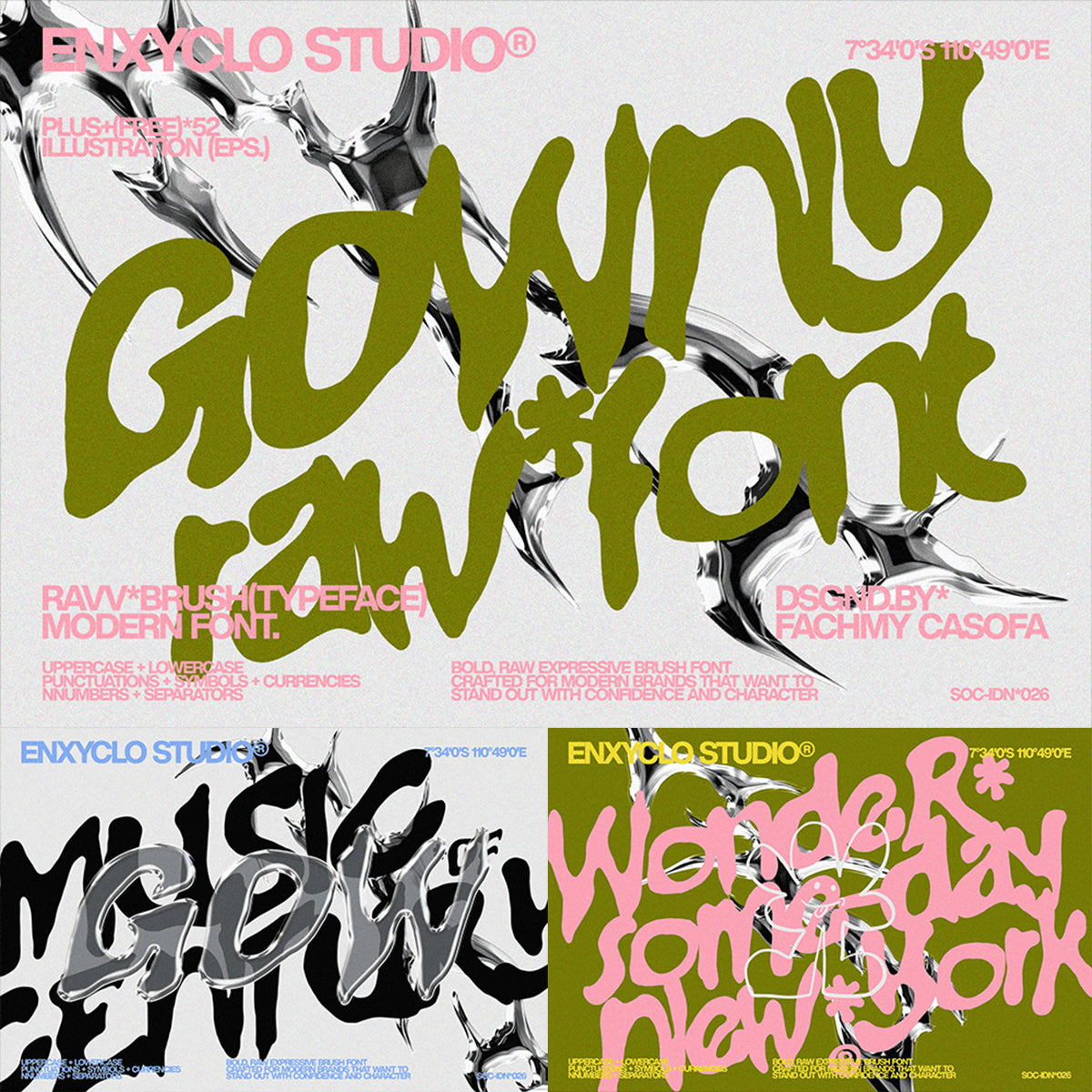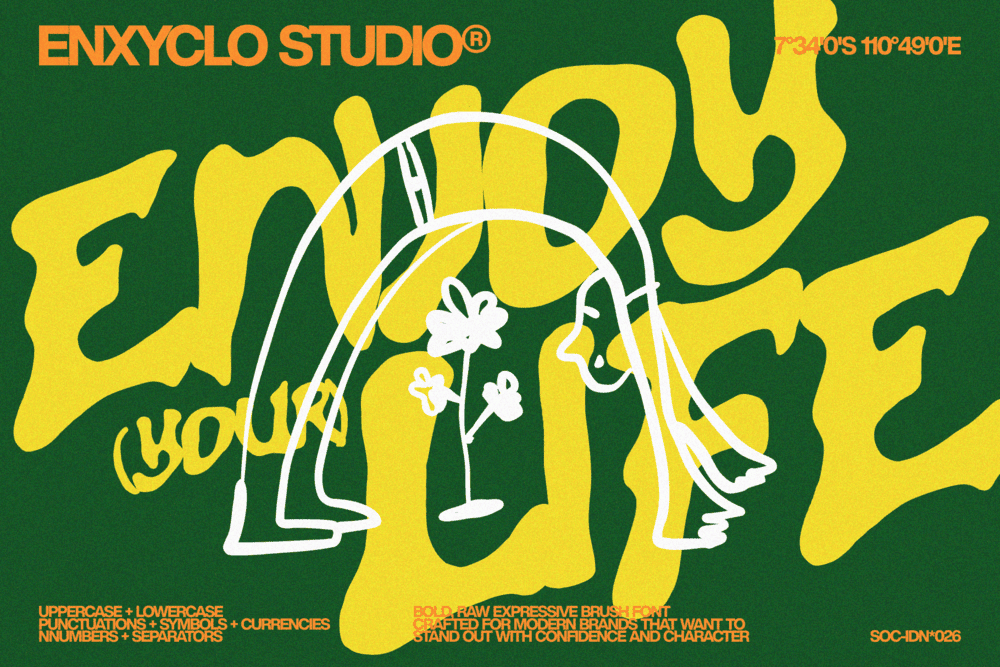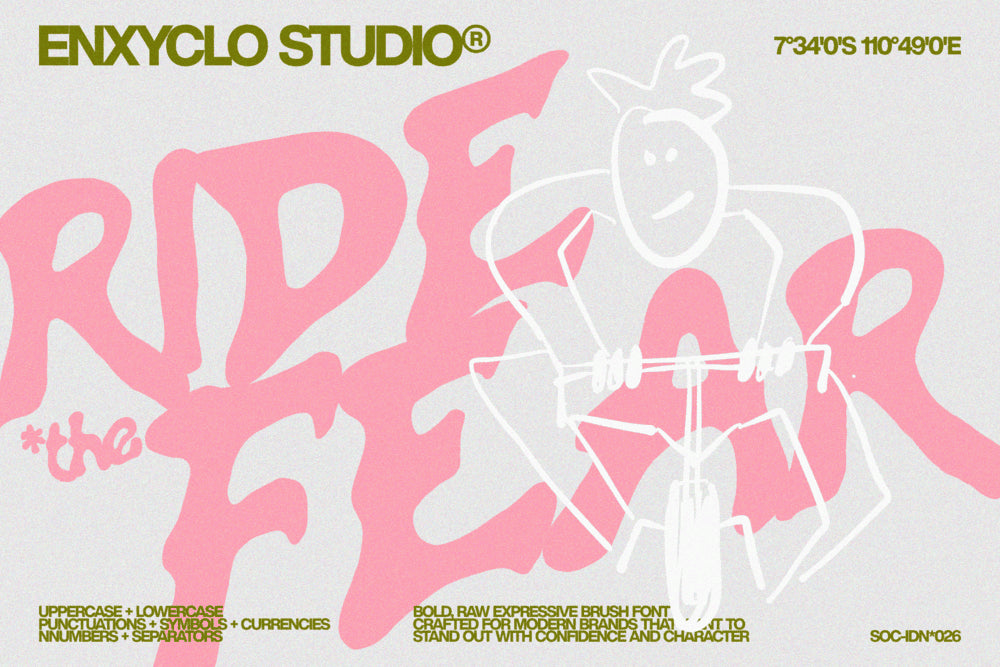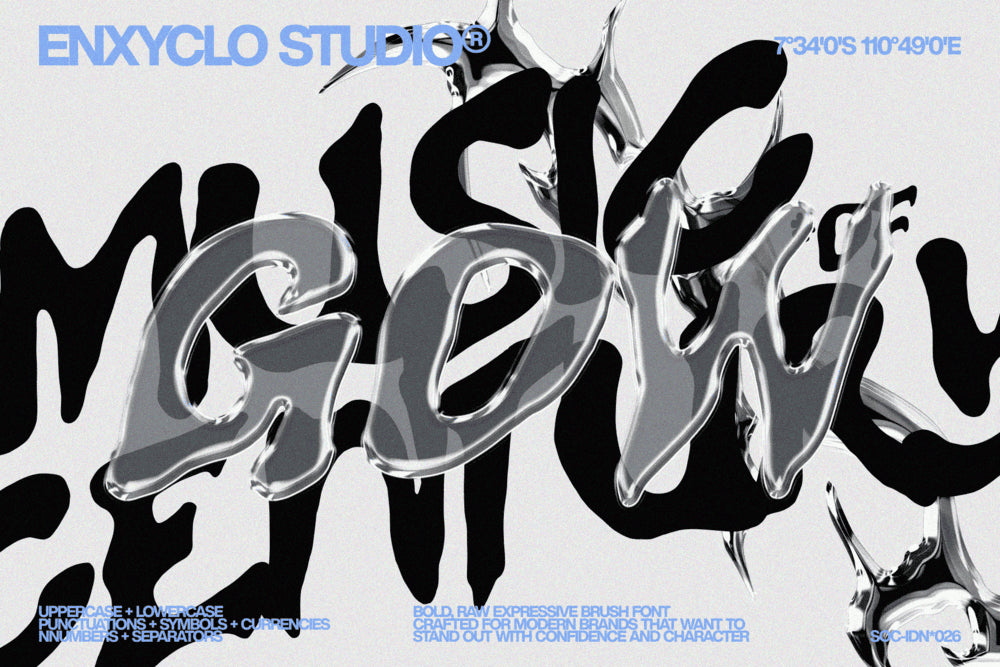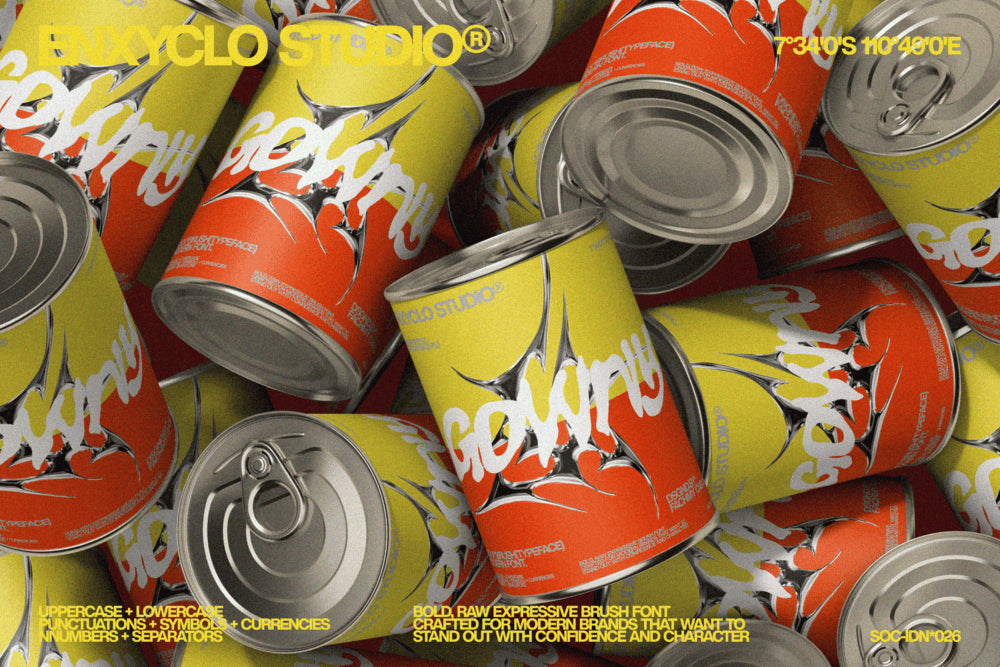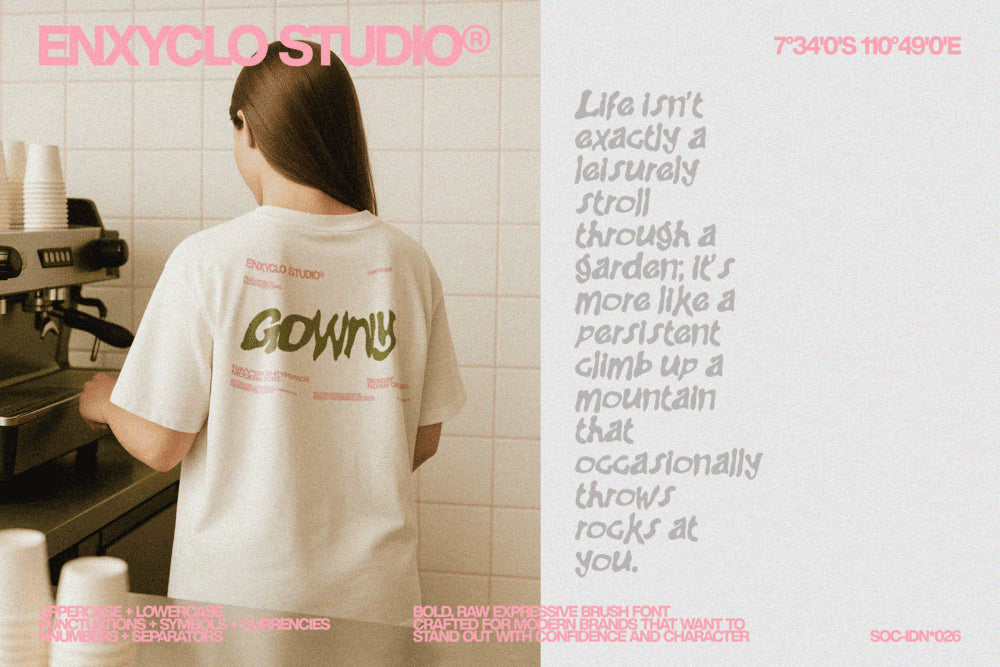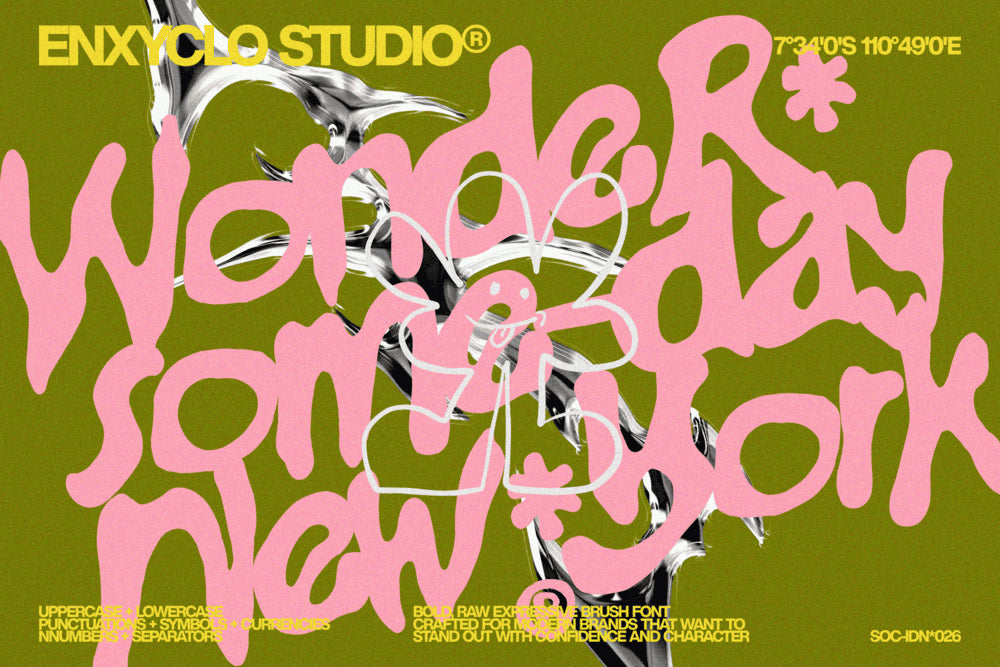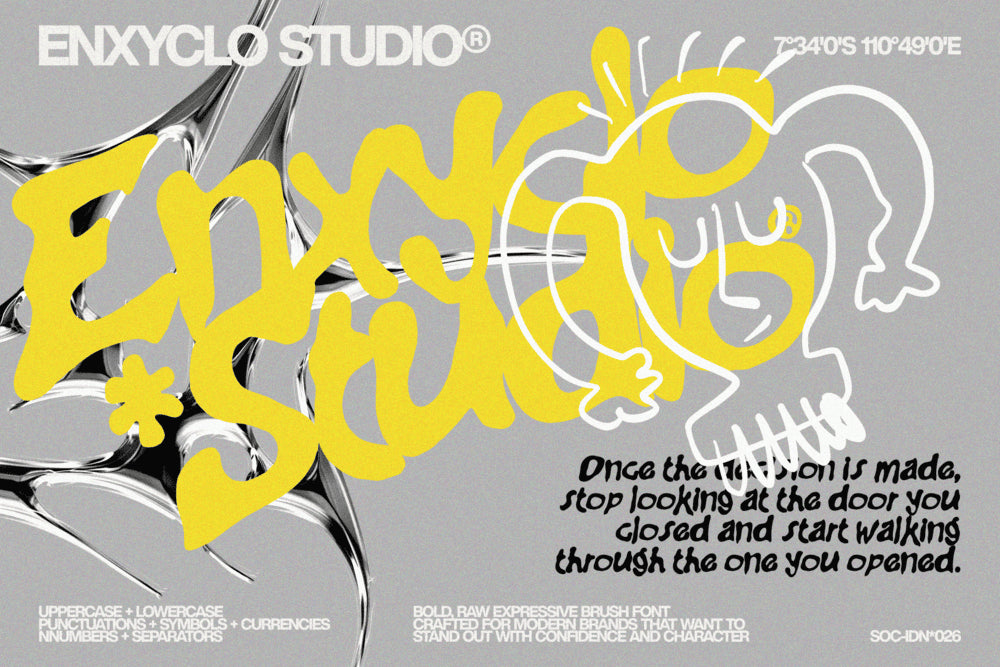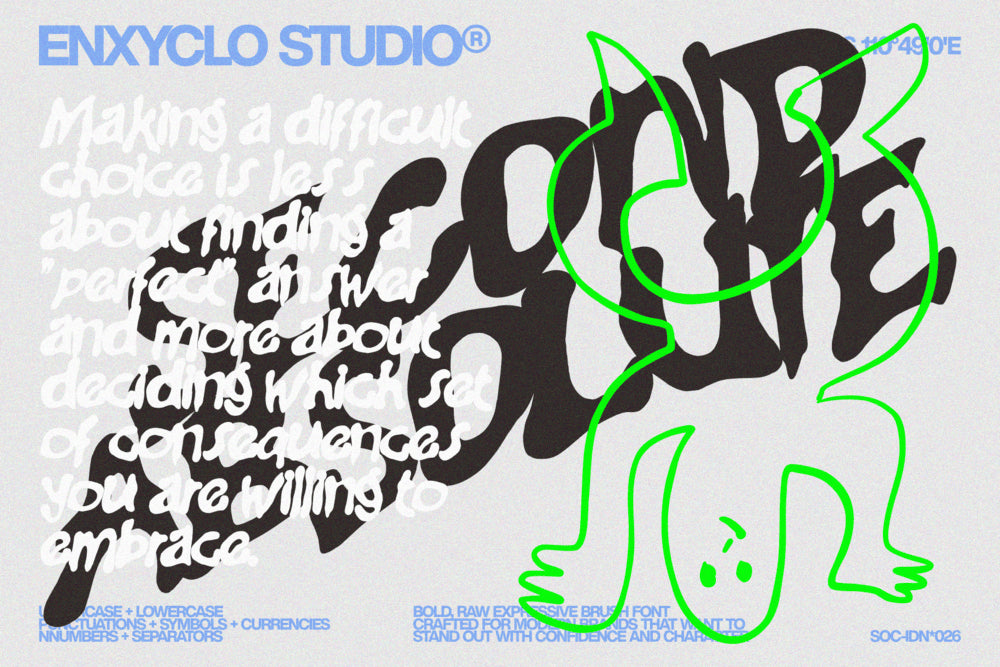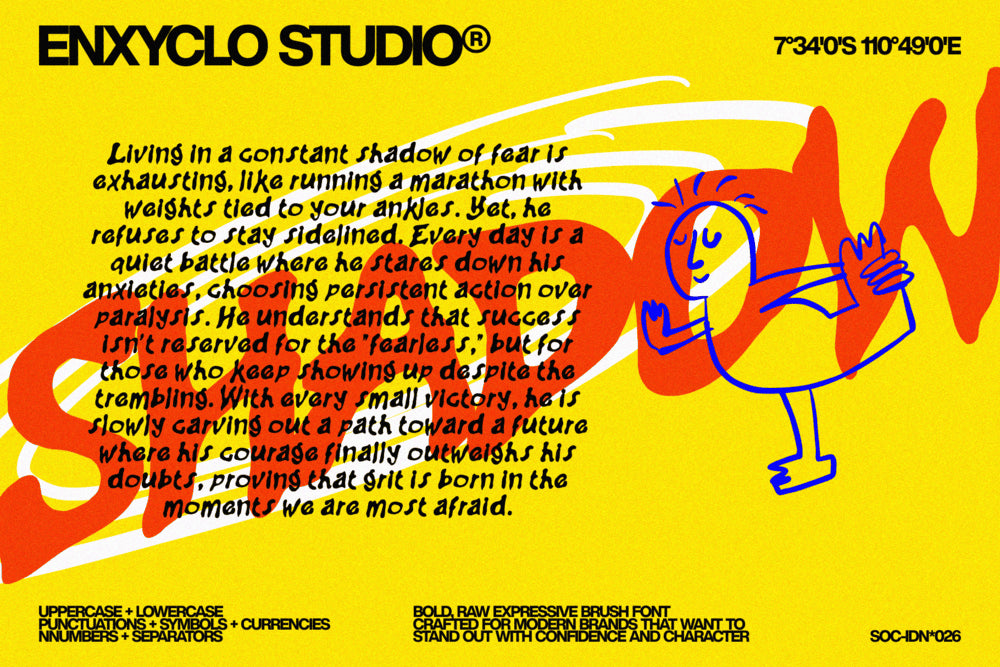
GOWNY — Expressive Modern Font
GOWNY is a bold, raw expressive brush font crafted for modern brands that want to stand out with confidence and character. Inspired by rough hand-painted strokes and expressive lettering, GOWNY blends raw energy with a clean, contemporary structure—creating a powerful balance between chaos and control.
Its rough yet intentional brush texture delivers an authentic, handmade feel while staying readable and minimal enough for modern design needs. GOWNY is designed to feel bold, creative, and fearless—perfect for logos that need personality, attitude, and a strong visual voice.
Whether you’re building a creative logo, agency branding, or modern logotype, GOWNY brings expressive strength and modern edge into every letterform. This font doesn’t whisper—it speaks loud, raw, and confidently.
FEATURE
Uppercase letters
Lowercase letters
Punctuation marks
Symbol set
Currency symbols
PERFECT FOR
Creative logo & logotype design
Branding & brand identity
Modern agency visuals
Contemporary packaging
Poster & headline design
Social media graphics
Creative campaigns & visual storytelling
GOWNY is a bold, expressive brush font designed for modern brands, featuring a raw hand-painted texture that maintains readability. It includes uppercase and lowercase letters, punctuation marks, a symbol set, currency symbols, and comes with a free illustration set in EPS and OTF formats.